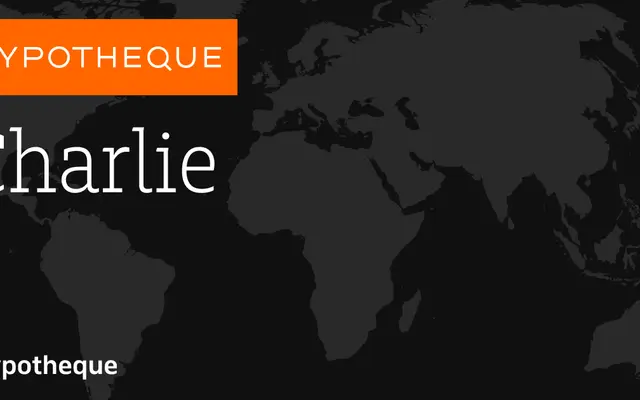
Charlie
A humanist sans from Typotheque with a proportional weight system designed to maintain consistent stroke widths as type size changes.
Charlie spans eight weights from Hairline to Black, each paired with an italic, and includes a subfamly called Echo which extends the family further. Its distinguishing feature is a proportional weight calculator intended to keep stroke widths visually consistent across different point sizes, a practical consideration for multi-scale typographic systems. Suited to editorial and text-heavy work where optical consistency across sizes matters.
Charlie reads as a humanist sans-serif, with proportionally calibrated stroke weights across a broad weight range and a subfamly called Echo, suggesting text-oriented optical sensitivity typical of humanist designs.